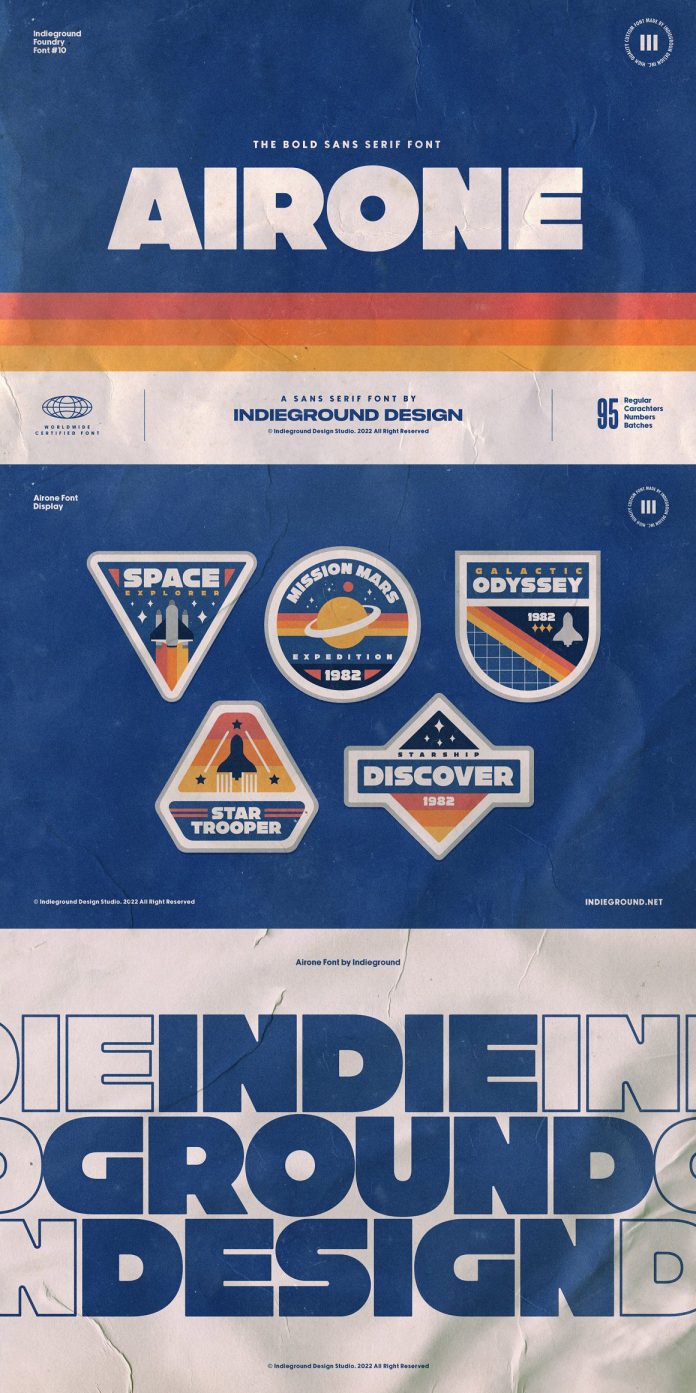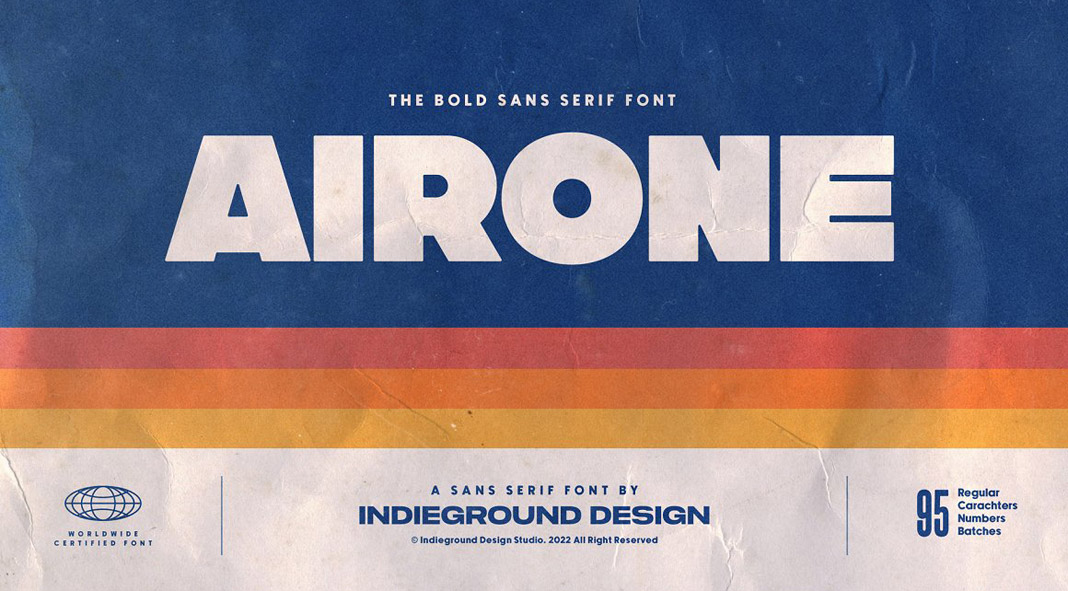
Airone, an extra-bold display font for heavy titles and headlines.
Designed by Italian studio Indieground, the Airone typeface combines a good dose of retro with contemporary influences. The result is an extra-bold display font for heavy titles and headlines. In addition to the regular typeface, the download file also includes an outline version. You can combine both styles in various ways to create unique designs. Using the Airone font, you can add a bold and iconic style to your typographic work. This typeface with its big fat personality is ideal for a wide range of graphic design or typography projects. Its style is reminiscent of typographic designs known from the tech industry, airlines, or even space traveling. Just click on one of the following links to learn more about the beautiful Airone font.